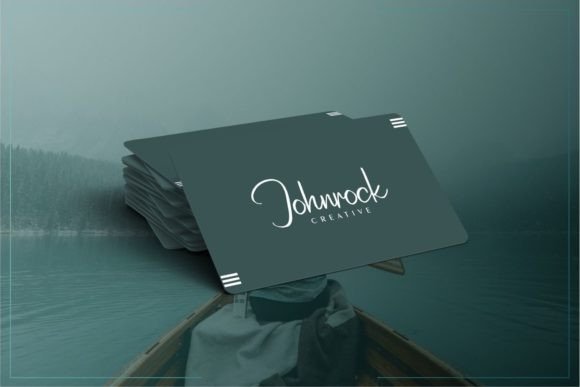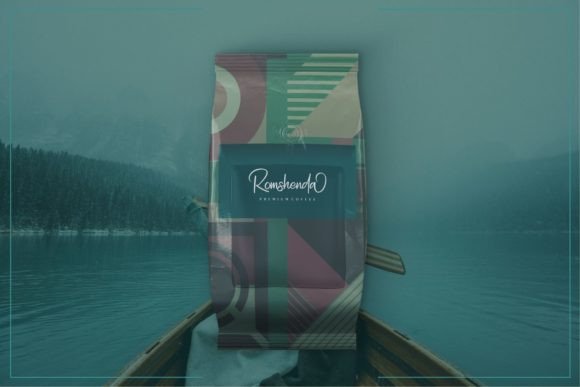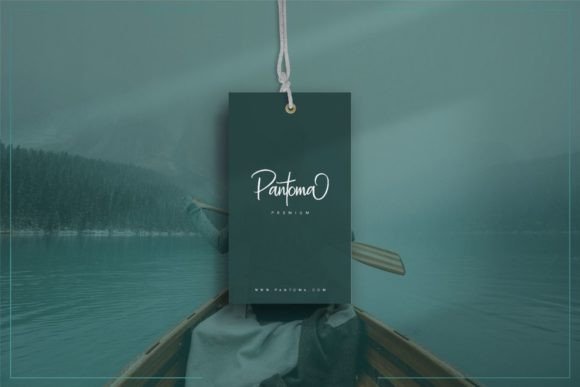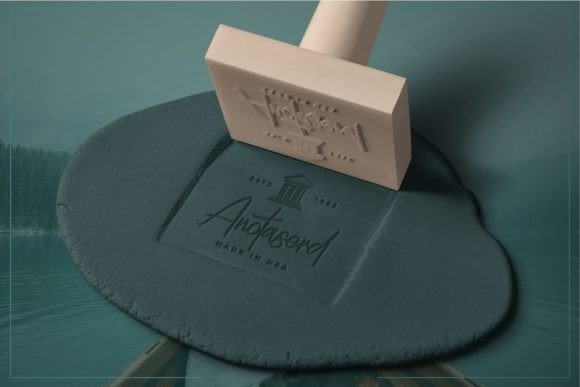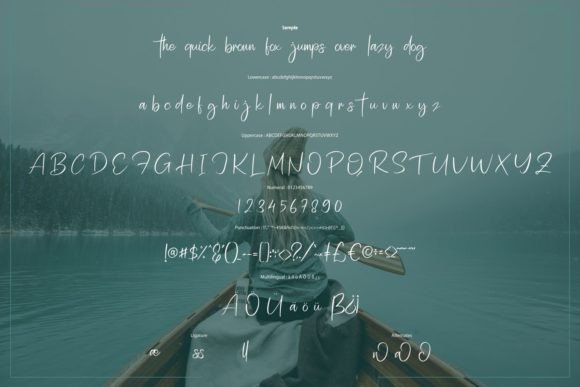
Billy’s Rosse Font: Elevate Your Creativity with Elegance
In the world of typography, a good font can make all the difference in transforming a simple design into a masterpiece. For those seeking a touch of elegance and magic in their creative projects, Billy’s Rosse font is an excellent choice. This beautiful script font is designed to bring a sense of sophistication and charm to any design, making it perfect for a wide range of applications, from Instagram posts to DIY projects.
The Story Behind Billy’s Rosse
Billy’s Rosse is more than just a font; it’s a tool for creative expression. Crafted with meticulous attention to detail, this magical script font combines traditional calligraphy elements with modern design sensibilities. The result is a font that is not only visually stunning but also versatile and easy to use.
Features of Billy’s Rosse Font
- Elegant and Magical: Billy’s Rosse brings an air of elegance and a touch of magic to any project. Its unique characters and flowing lines make it perfect for designs that require a sophisticated look.
- Versatile: Whether you’re working on digital projects, such as Instagram posts and blogs, or on physical creations like DIY crafts and stationery, Billy’s Rosse adapts seamlessly.
- High-Quality: The font is crafted with high-quality characters, ensuring that it looks great in any size or application.
Applications of Billy’s Rosse Font
The versatility of Billy’s Rosse font makes it suitable for a wide range of applications. Here are a few ideas to get you started:
- Social Media Graphics: Elevate your Instagram posts, Facebook covers, and Twitter headers with a touch of elegance.
- DIY Projects: Add a professional look to your handmade crafts, such as journals, cards, and decorations.
- Calligraphy and Lettering: Use Billy’s Rosse as a base for your calligraphy and lettering projects, adding your personal touch.
- Branding and Marketing: Give your brand a unique and memorable identity with custom logos, brochures, and business cards.
Billy’s Rosse font is a magical script font that brings a touch of elegance to any creative project. Its versatility, ease of use, and stunning design make it an excellent choice for designers and crafters alike. Whether you’re looking to elevate your social media presence, create beautiful DIY projects, or develop a unique brand identity, Billy’s Rosse is sure to turn your creative ideas into true pieces of art. So why wait? Dive into the world of Billy’s Rosse and let your creativity shine!